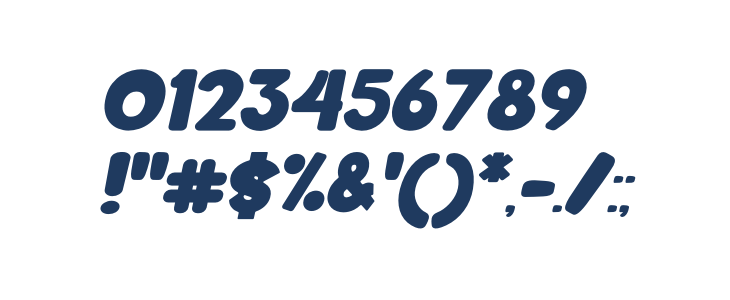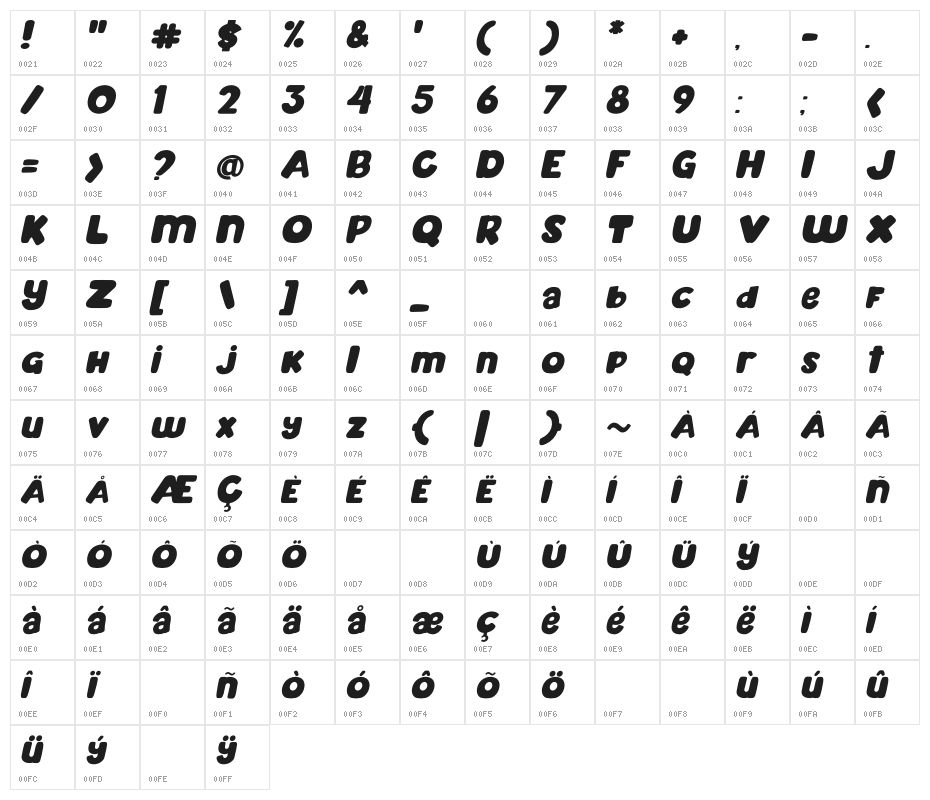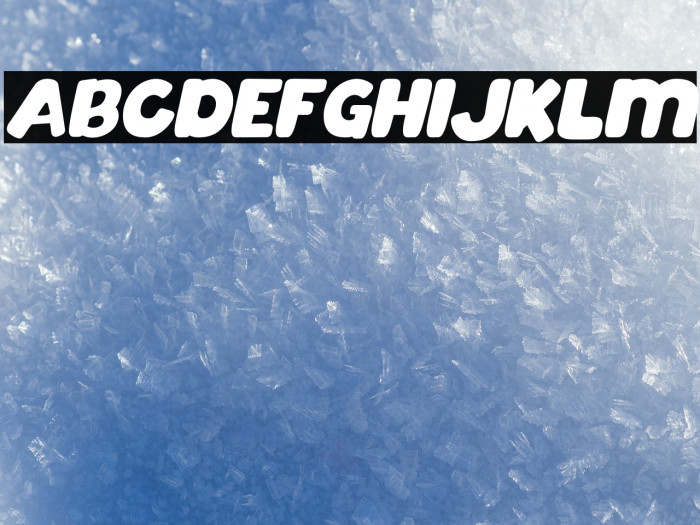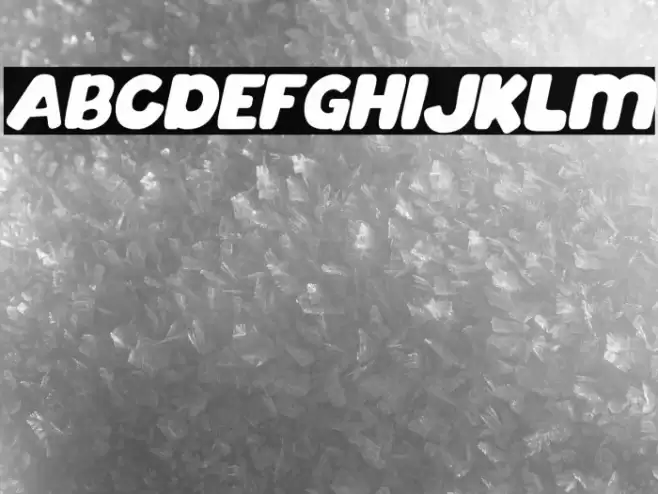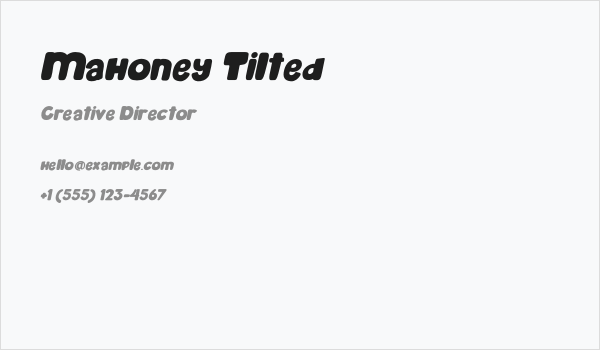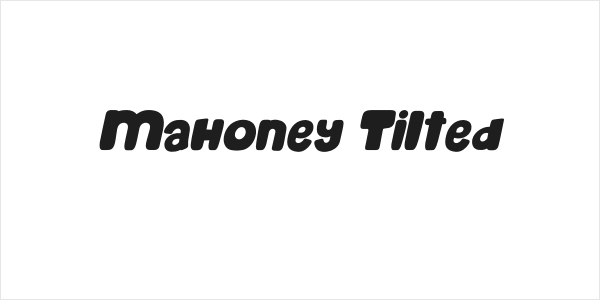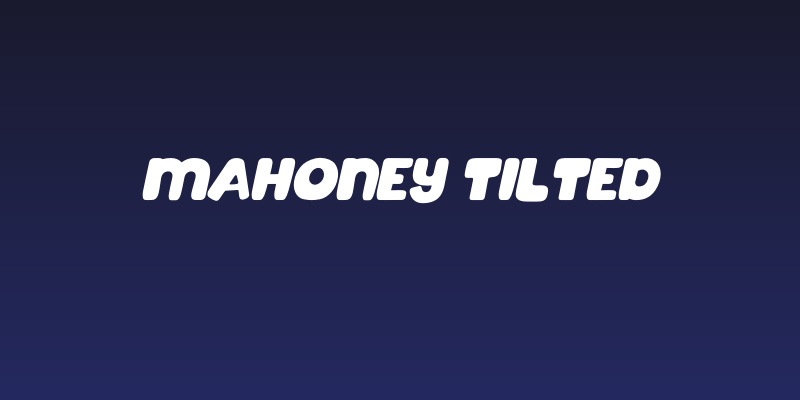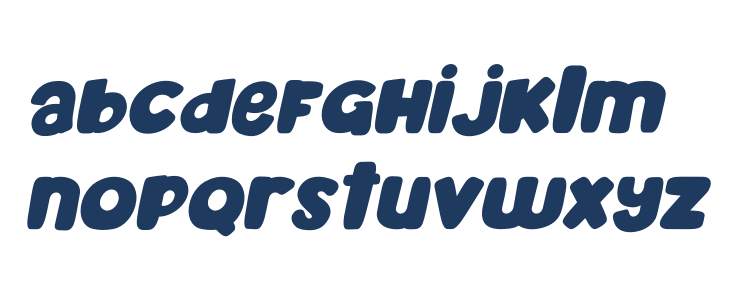
Mahoney Tilted Font
Mahoney Tilted Description
This font features a bold, playful style with rounded edges and a slight tilt, giving it a dynamic and energetic appearance. The characters are thick and substantial, making them highly visible and impactful. The rounded forms and smooth curves contribute to a friendly and approachable look, suitable for a variety of creative projects. The font maintains consistency across uppercase, lowercase, numbers, and special characters, ensuring a cohesive design. Its boldness and unique tilt make it stand out, while the rounded shapes add a touch of softness and warmth.
| Overall Style | Playful, Energetic |
| Proposed Projects | Ideal for children's books, playful branding, posters, and creative advertising. |